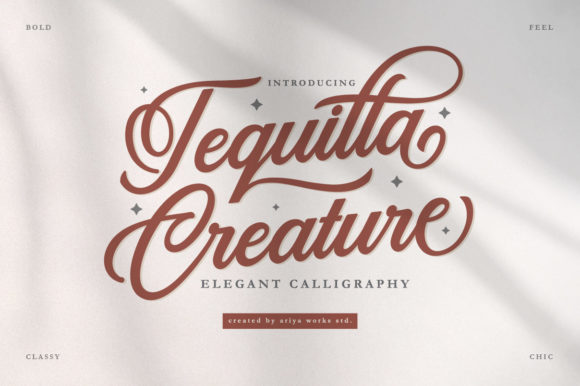
Unleash your creative spirit with Tequilla Creature, a captivating script font that will bring a touch of elegance and sophistication to your digital creations. Step into a world of boundless possibilities, where words dance with grace and charm, leaving an unforgettable impression.
With its classy, elegant, and modern look, Tequilla Creature is the perfect choice for a wide range of projects, from logos and branding to invitations, stationery, wedding designs, social media posts, and beyond. Let your imagination soar as you explore the endless opportunities that await.
Crafted by the skilled hands of Ariya Works Studio, Tequilla Creature embodies the essence of refined beauty. Its meticulously designed characters exude a timeless charm that will elevate your designs to new heights. Experience the joy of creating stunning visual masterpieces that resonate with your audience.
Immerse yourself in a symphony of creativity as you delve into Tequilla Creature's extensive character set. Discover a treasure trove of swashes, ligatures, and alternate glyphs that will add a touch of individuality and flair to your projects. Unleash the full potential of Tequilla Creature and watch your designs come alive with captivating allure.
With Tequilla Creature, the possibilities are endless. Whether you're a seasoned designer seeking to expand your typographic horizons or a passionate hobbyist eager to explore the world of digital art, this extraordinary font will ignite your imagination and empower you to create truly exceptional designs.